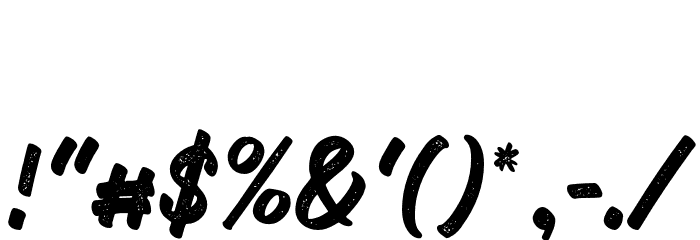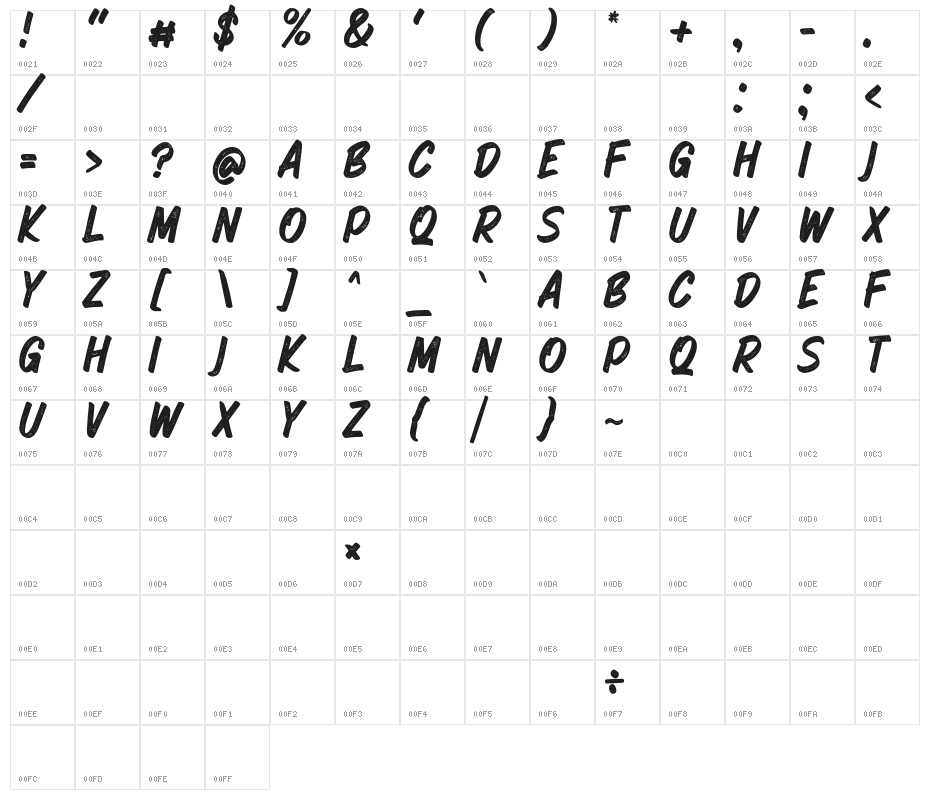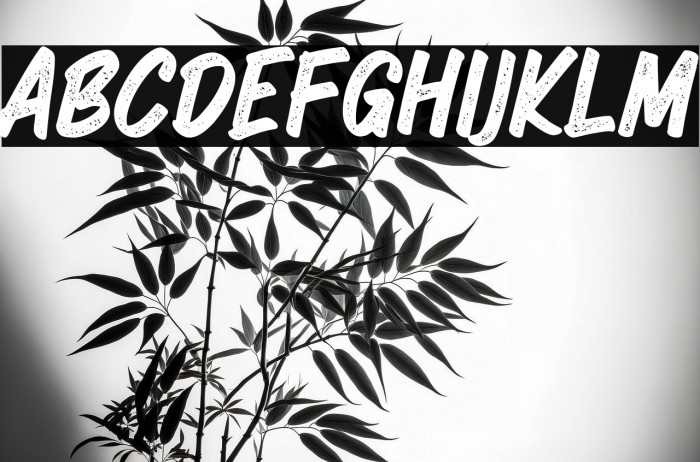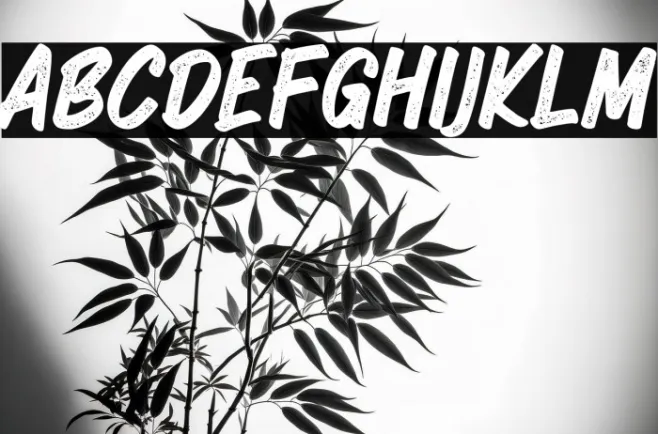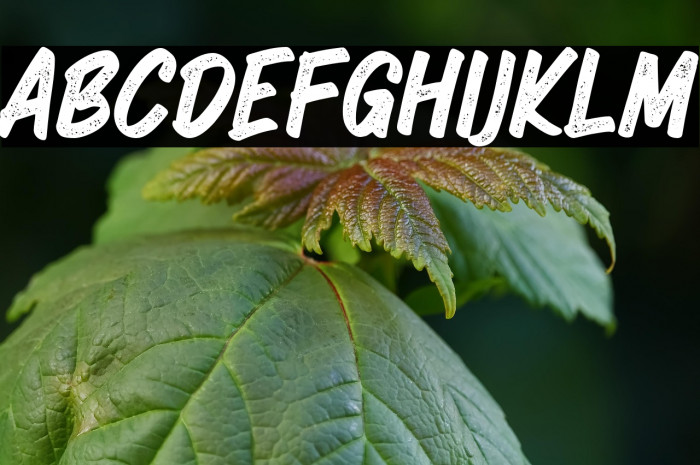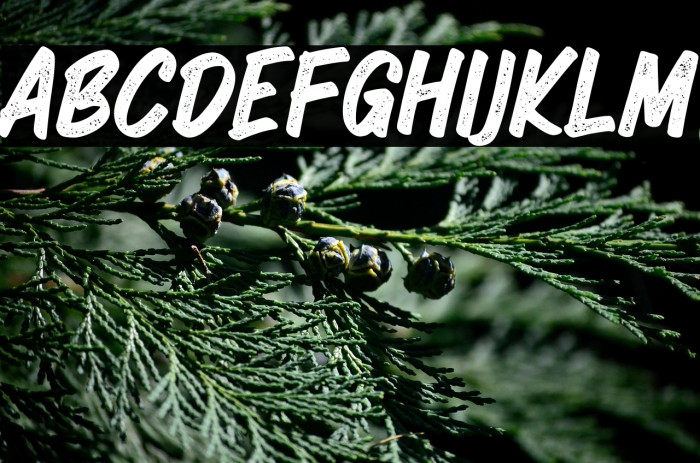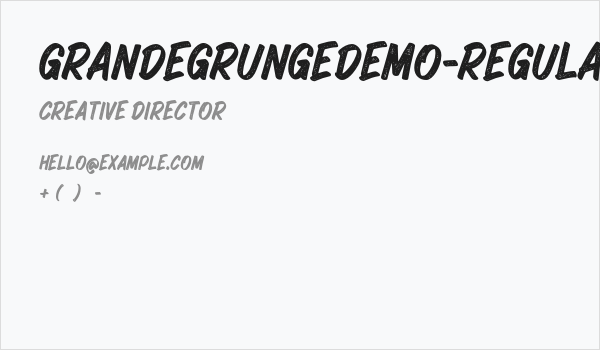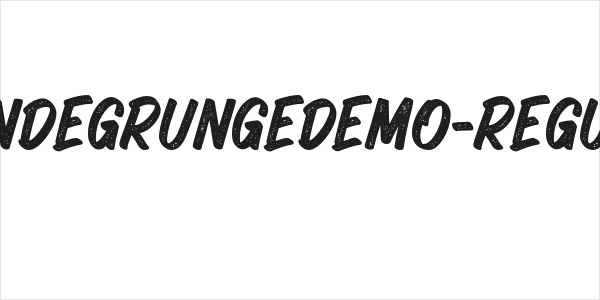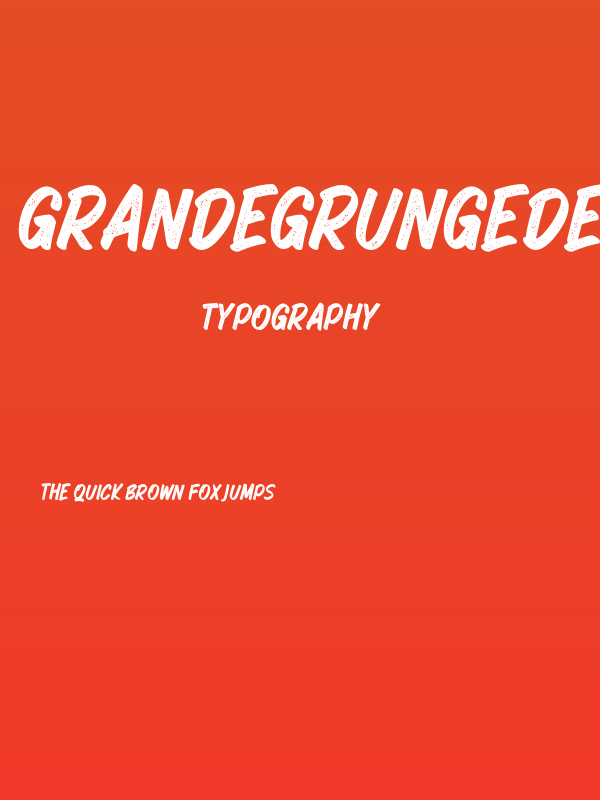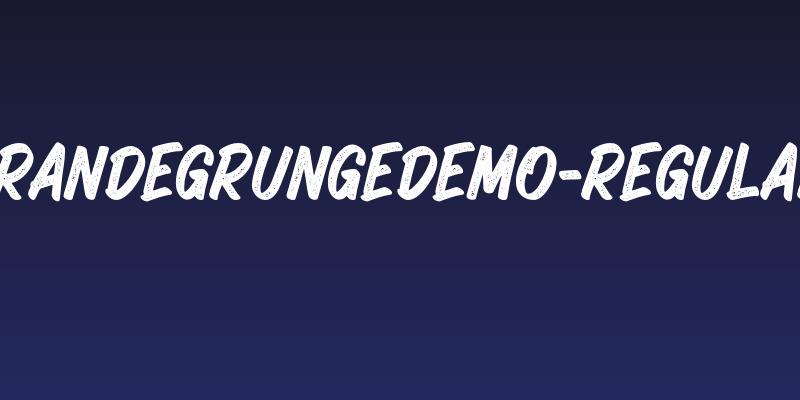
GrandeGrungeDEMO-Regular Font
GrandeGrungeDEMO-Regular Description
This font features a bold, textured style with a distressed, grunge appearance. Each character is designed with a rough, uneven surface that gives it a worn and rugged look. The uppercase letters are prominent and impactful, while the lowercase letters maintain a consistent style. The numbers and special characters follow the same distressed pattern, ensuring a cohesive appearance across all glyphs. This font is ideal for projects that require a bold and edgy aesthetic, such as music album covers, posters, and urban-themed designs. Its unique texture and bold presence make it stand out in any design context.
| Proposed Projects | Ideal for music album covers, posters, urban-themed designs, and any project needing a bold, edgy aesthetic. |